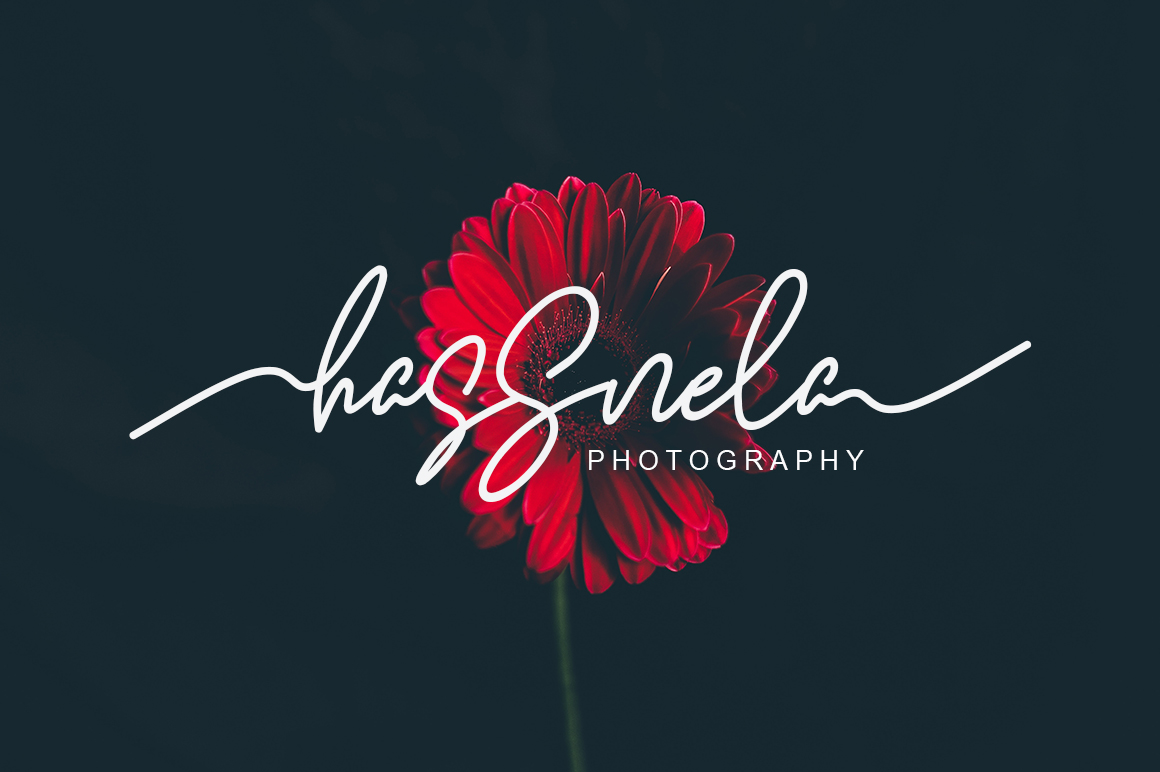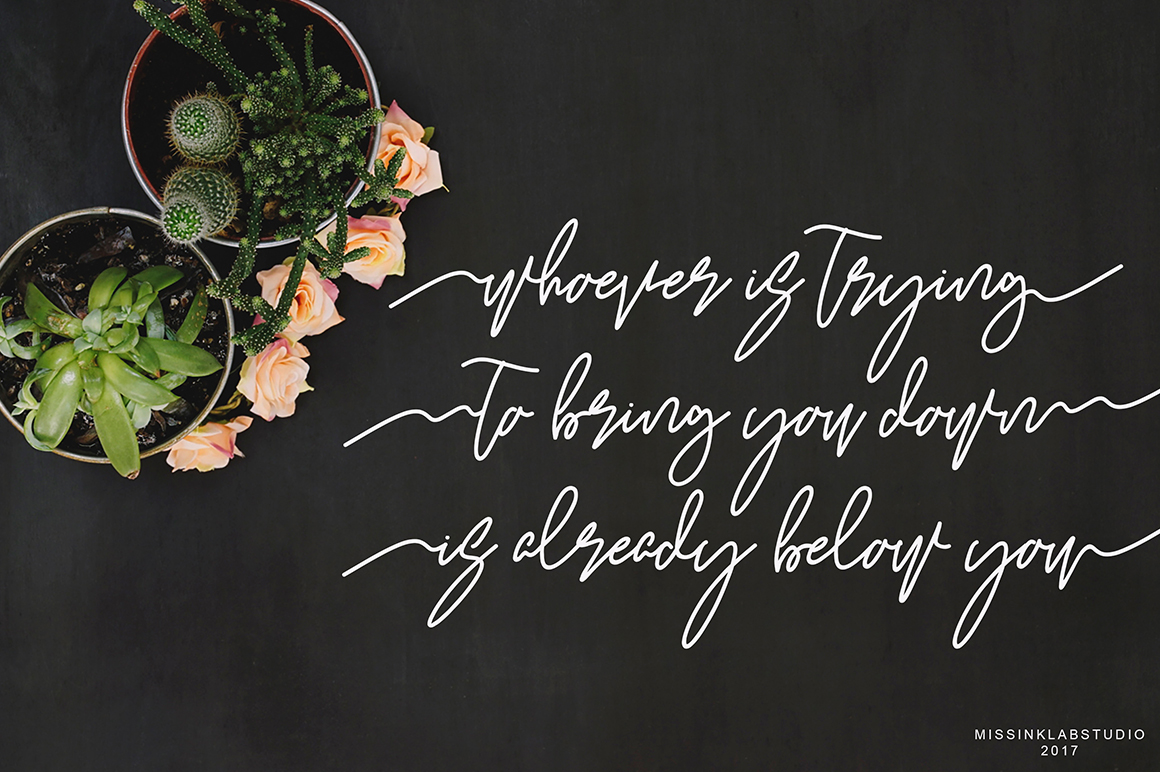
Introduction to Kanittia Font
Remember that moment when you’re brainstorming ideas for a new project and you just can’t seem to find the right font to bring it all together? You’ve scrolled through countless options, but nothing seems to capture the essence of your creative vision. That’s when you stumble upon the perfect match – a font that’s not only visually stunning but also perfectly suited to your project’s unique tone and style. For designers, finding the right font can be a game-changer, and that’s where the Kanittia Font comes in.
With its modern script style and casual, signature feel, the Kanittia Font is the perfect addition to any design resource collection. Whether you’re working on a high-quality creative project or just need a unique touch to elevate your design, this font is sure to deliver.
Key Features of Kanittia Font
- Unique Script Font Style: Kanittia Font offers a beautiful, cursive script style perfect for creative projects that require a touch of elegance and sophistication.
- Transparent Background Option: This font allows for a transparent background, making it ideal for projects that require a high level of customization and flexibility.
- High-Quality Design Resource: Kanittia Font is a high-quality design resource that is suitable for a wide range of creative projects, from logos and branding to web design and print materials.
- Perfect for Creative Projects: Kanittia Font is a versatile font that is perfect for a wide range of creative projects, from wedding invitations and birthday cards to business cards and brochures.
Honest Review: Kanittia Font
I recently had the chance to experiment with the Kanittia Font, and I’m excited to share my honest thoughts on this design resource. As a designer, I’m always on the lookout for high-quality fonts that can elevate my creative projects.
Here are some aspects where the Kanittia Font truly shines: ✨
- Unique aesthetic: The Kanittia Font boasts a distinctive and eye-catching design that’s perfect for adding a touch of personality to your projects.
- Wide range of uses: Whether you’re working on a branding project, a website, or a social media campaign, the Kanittia Font is versatile enough to adapt to various creative contexts.
However, I did encounter a few limitations: ⚠️
- Limited transparency options: While the font itself is high-quality, the lack of transparent background options might limit its use in certain design scenarios.
Overall, the Kanittia Font is a solid choice for designers seeking a unique and high-quality font for their creative projects. Its free download and versatility make it an excellent design resource, but be mindful of the limited transparency options.
The Kanittia Font is a versatile font that can be used in a variety of creative projects, including logos, business cards, and social media graphics. To get the most out of the Kanittia Font, consider using it with a transparent background to create a clean and modern design. You can also use the Kanittia Font in combination with other design elements, such as graphics and images, to create a visually appealing design.